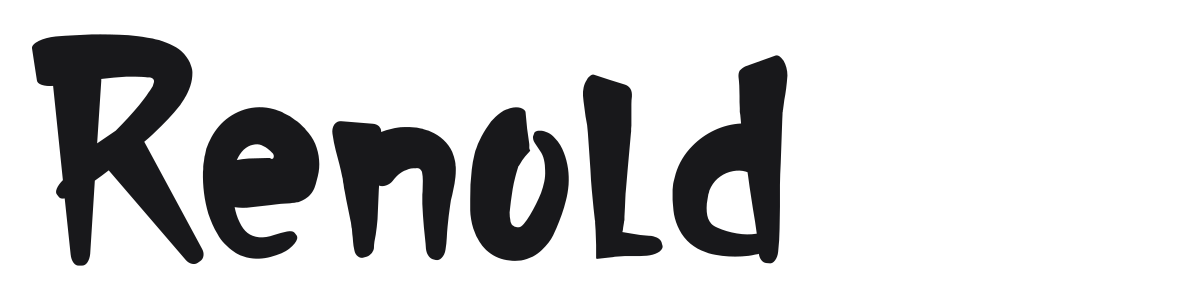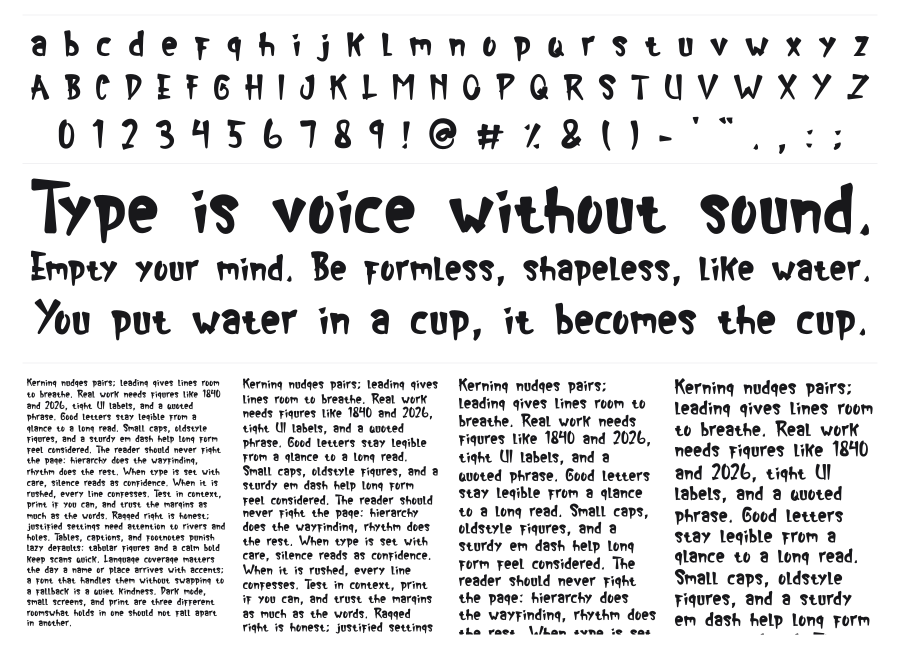
Renold
Renold is a chunky, hand-drawn display font with an intentionally wobbly, comic-book energy. Its heavy strokes and irregular terminals give it a handcrafted warmth that feels both bold and approachable. Works well for children's content, casual branding, posters, and anywhere a touch of personality is needed.